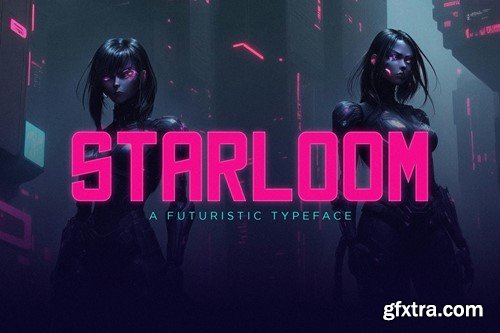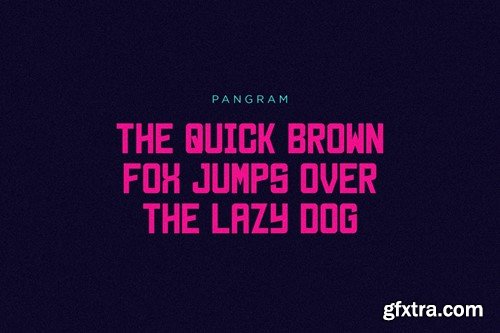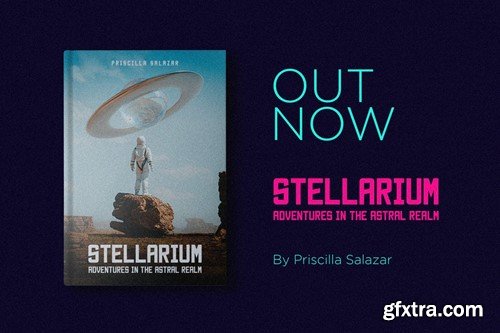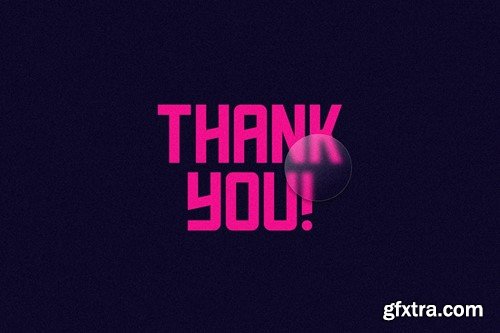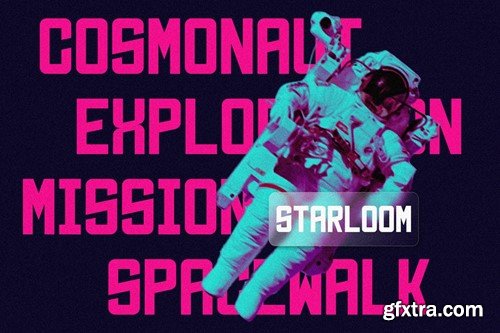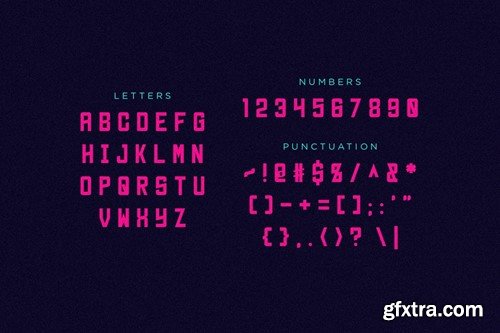
Starloom Futuristic Typeface
Starloom Futuristic Typeface This is the latest Futuristic font from us, very suitable for use in your work presentations such as blog design, modern design, web design, invitation cards, and others. please download and enjoy! INCLUDES FONT FORMAT image on preview is just preview (not include on the font ZIP )